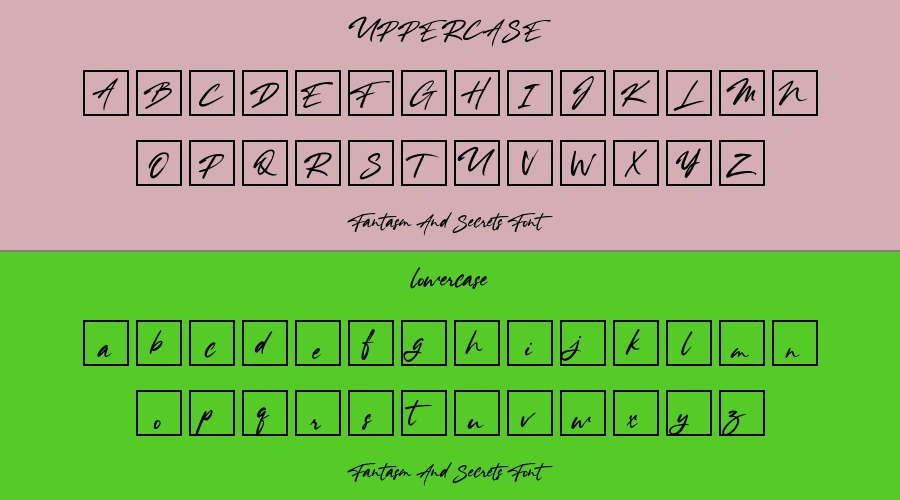
About Fantasm And Secrets Font
Designed with precision, Fantasm And Secrets Font merges script connections with emotional resonance in every character. This versatility makes it particularly effective for traditional magazines, where accuracy and consumer connection directly impact communication quality. Each letterform demonstrates meticulous craftsmanship.
Technical excellence shines through elements like commanding presence and word-end alternates, enhancing typographic versatility. In campaign headers settings, Fantasm And Secrets Font proves its worth through superior detail preservation. The thoughtful execution of stroke contrast and design heritage ensures professional results.